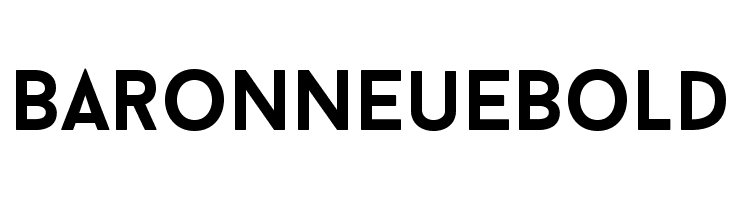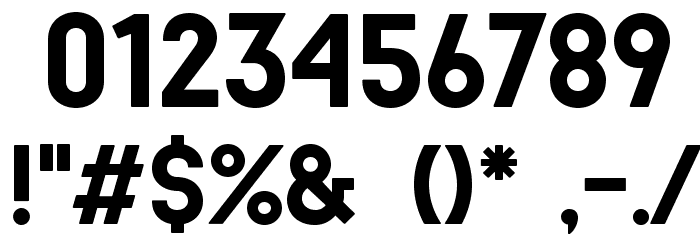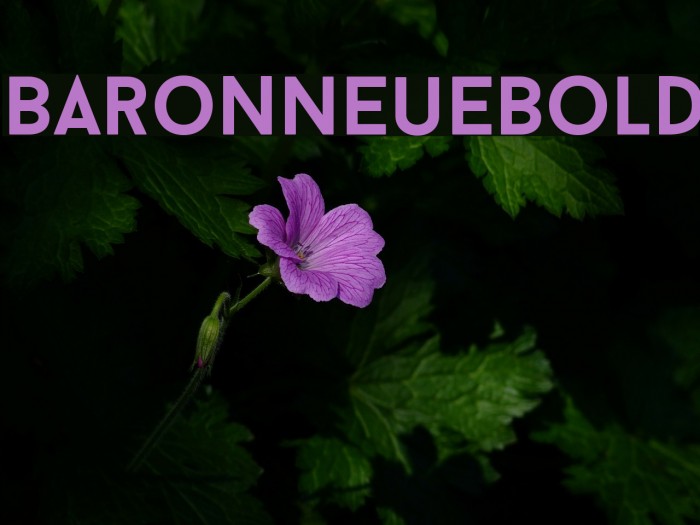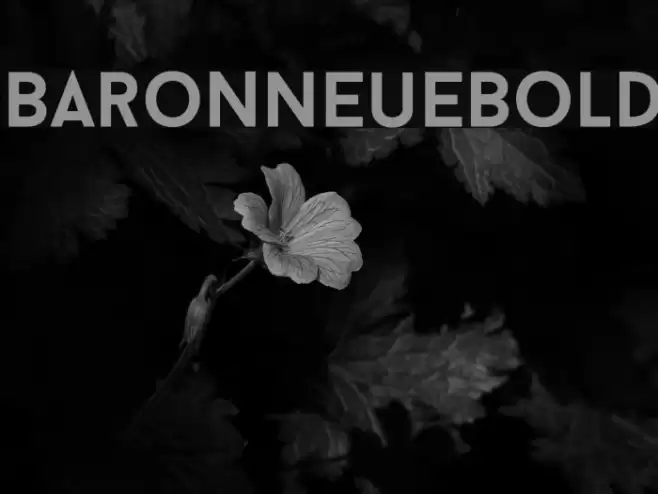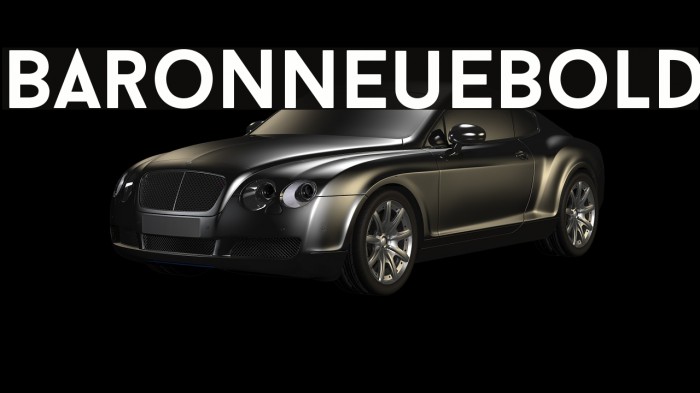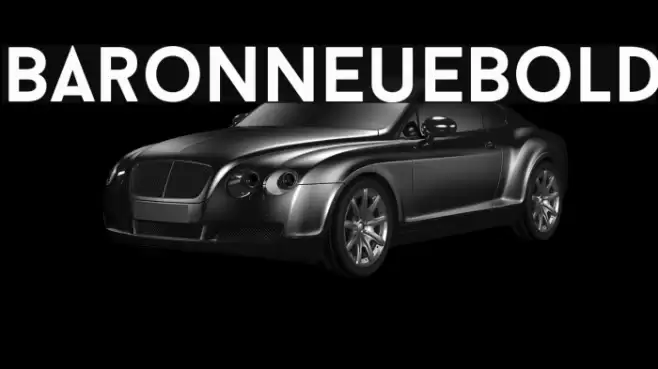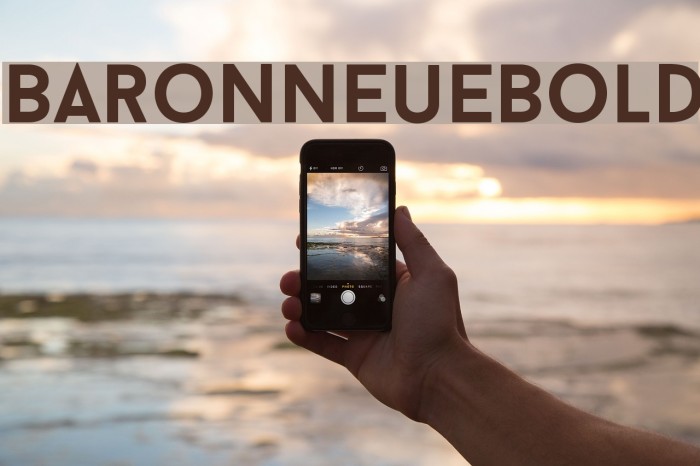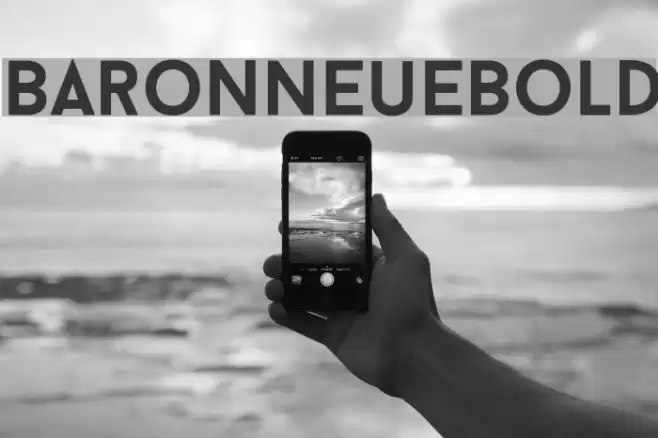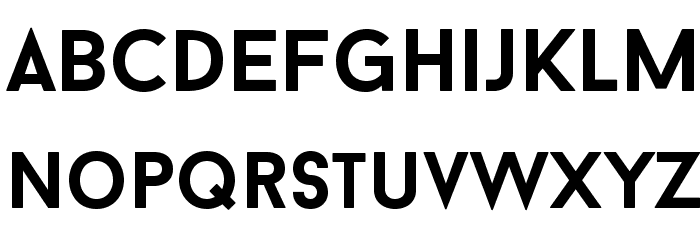
BaronNeueBold Font
BaronNeueBold Description
This font exhibits a bold, geometric sans-serif style that is both modern and assertive. The characters are constructed with clean, straight lines and sharp angles, giving it a contemporary and minimalistic appearance. The uppercase and lowercase letters maintain a consistent weight, contributing to a uniform and cohesive look. The numerals are equally bold, ensuring readability and impact. Special characters are designed with the same attention to detail, making them suitable for various applications. The overall design is sleek and professional, making it ideal for projects that require a strong visual presence.
| Use Case | Headlines, Logos, Branding |
| Proposed Projects | Ideal for branding, advertising, headlines, and digital media where a strong, modern aesthetic is desired. |